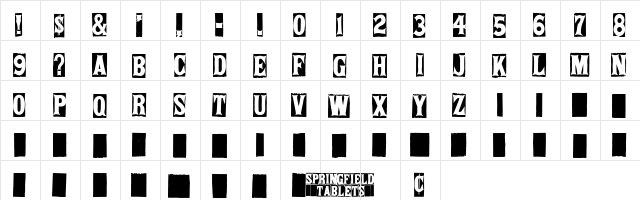
SpringfieldTablets Regular
Design Context for SpringfieldTablets Typeface
SpringfieldTablets is a composed and adaptable typeface that performs quietly and consistently across a wide range of design contexts.